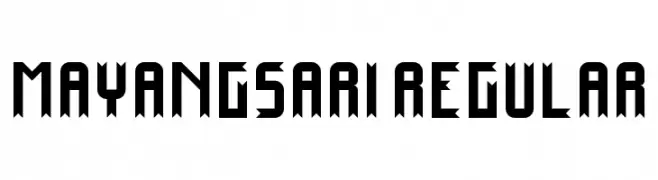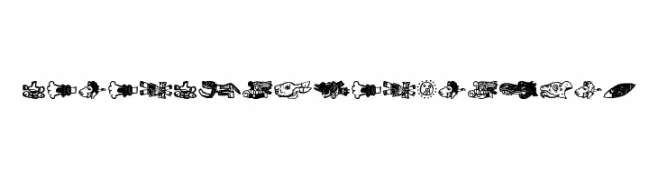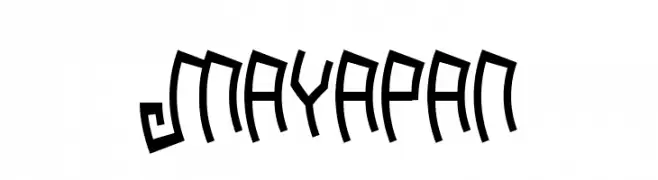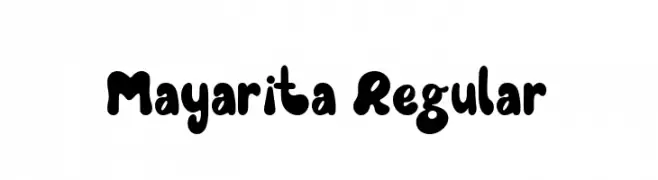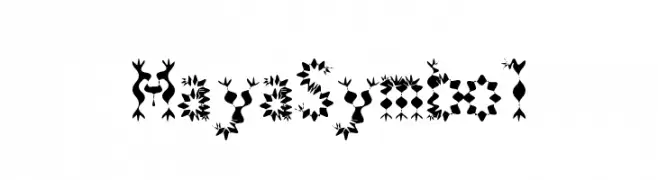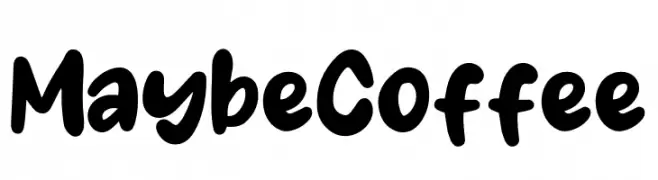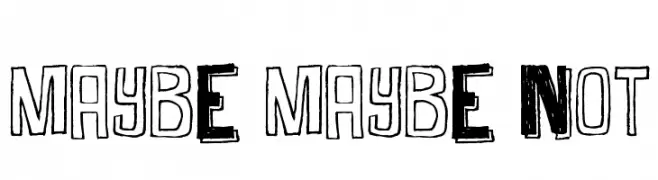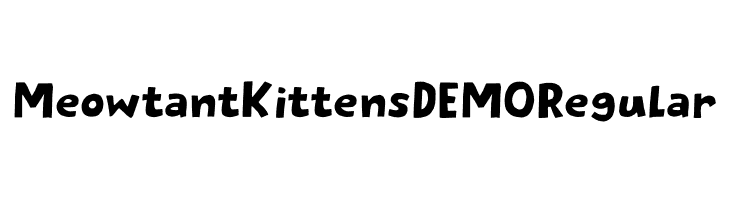
Intricate symbols inspired by ancient Mayan and Mexican iconography.
A bold, angular font with a geometric and modern style.
A bold, angular, and geometric font with a modern edge.
A playful, bold font with rounded edges and a bubbly appearance.
A decorative font with intricate, symbol-like characters inspired by ancient motifs.
A bold, graffiti-inspired font with a dripping paint effect, ideal for urban-themed designs.
A bold, brush-style font with dynamic and expressive strokes.
A bold, playful handwritten font with thick, rounded strokes.
A bold, hand-drawn font with a rough, textured appearance.